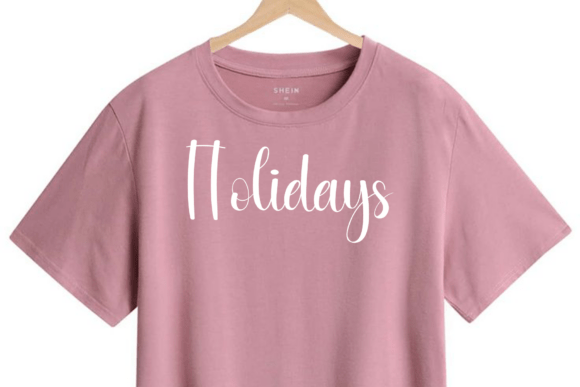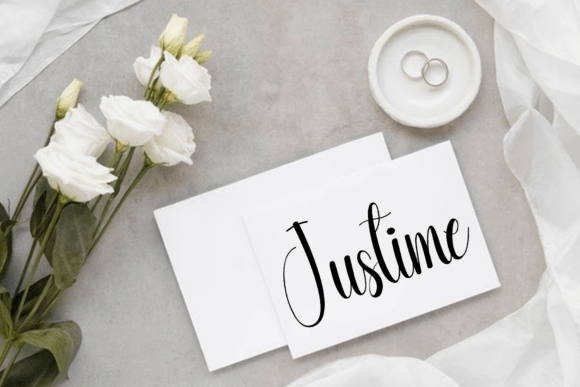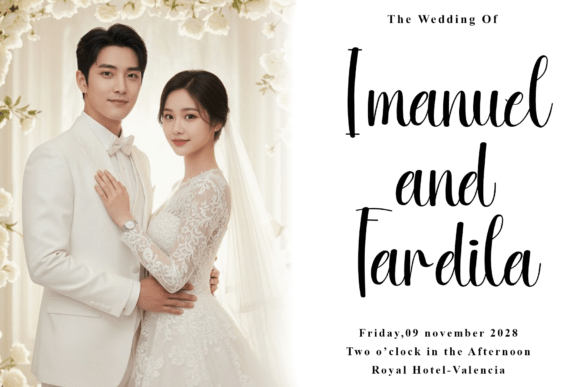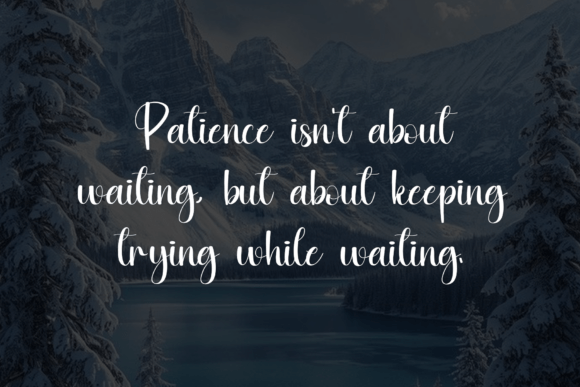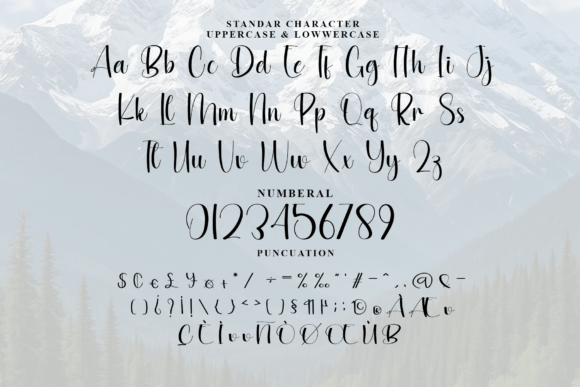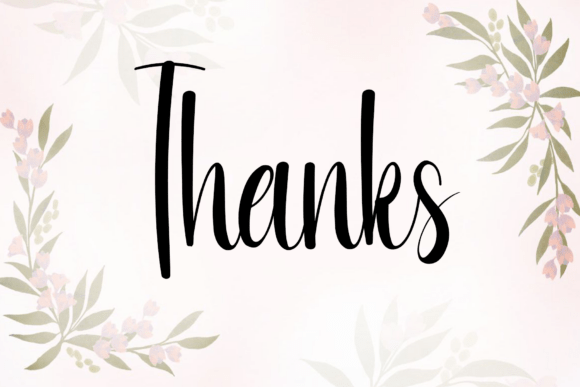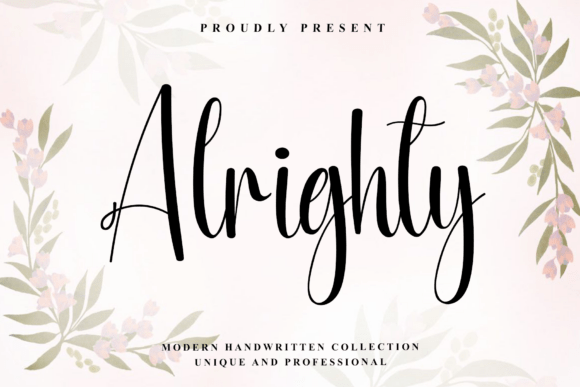
Introducing Alrighty Font: Elevate Your Design with a Sophisticated Autumnal Script
In the world of typography, a well-crafted font can elevate your design from ordinary to extraordinary. If you’re a designer, craftsperson, or marketing professional looking for a unique and professional visual voice for your autumn-themed projects, look no further than Alrighty Font. This stunning script font is part of a modern handwritten collection that embodies the warmth and sophistication of the autumn season.
The Characteristics of Alrighty Font
Alrighty Font is a masterclass in elegant typography. Its high-contrast strokes feature thick, grounded downstrokes and delicate hairline connectors, creating a sense of refinement and poise. The typeface is characterized by vertically elongated letterforms, which add to its sense of sophistication and luxury. The graceful, looping ascenders are reminiscent of high-end inkwork, giving Alrighty Font a truly premium feel.
Perfect for Autumn-Themed Projects
As a seasonal script font, Alrighty Font is perfectly suited for autumn-themed marketing campaigns, packaging, and editorial projects. Its unique and professional visual voice evokes the warmth and coziness of the season, making it ideal for designs that require a touch of sophistication and elegance. Whether you’re creating a seasonal advertising campaign, designing labels for artisanal food products, or crafting invitations for a boutique event, Alrighty Font is the perfect choice.
Use Cases for Alrighty Font
• Seasonal Autumn Marketing: Add a touch of sophistication to your autumn-themed marketing campaigns with Alrighty Font. Its elegant typography and autumnal visual voice make it perfect for creating eye-catching advertisements, social media graphics, and promotional materials.
• Artisanal Food Packaging: Elevate your food packaging design with Alrighty Font. Its premium feel and sophisticated typography make it ideal for labeling artisanal food products, such as jams, honey, and baked goods.
• Boutique Event Invitations: Create stunning invitations for your boutique events, such as weddings, harvest festivals, and wine tastings, with Alrighty Font. Its elegant typography and looping ascenders add a touch of luxury and sophistication to your designs.
• Sophisticated Editorial Headers: Add a touch of elegance to your editorial projects, such as magazines, blogs, and newspapers, with Alrighty Font. Its unique and professional visual voice makes it perfect for creating eye-catching headers and titles.
Why Choose Alrighty Font?
• Unique and Professional Visual Voice: Alrighty Font offers a unique and professional visual voice that sets it apart from other fonts. Its elegant typography and autumnal aesthetic make it perfect for designs that require a touch of sophistication.
• High-Quality Typography: Alrighty Font features high-quality typography with high-contrast strokes, thick downstrokes, and delicate hairline connectors. Its vertically elongated letterforms and looping ascenders add to its sense of luxury and sophistication.
• Versatility: Alrighty Font is a versatile font that can be used for a wide range of design projects, from seasonal marketing campaigns to editorial projects.
In conclusion, Alrighty Font is a sophisticated and rhythmic script font that embodies a unique and professional autumnal visual voice. Its elegant typography, high-contrast strokes, and looping ascenders make it perfect for designs that require a touch of sophistication and luxury. Whether you’re a designer, craftsperson, or marketing professional, Alrighty Font is a premier asset for your autumn-themed projects. So why wait? Download Alrighty Font today and elevate your designs to new heights!